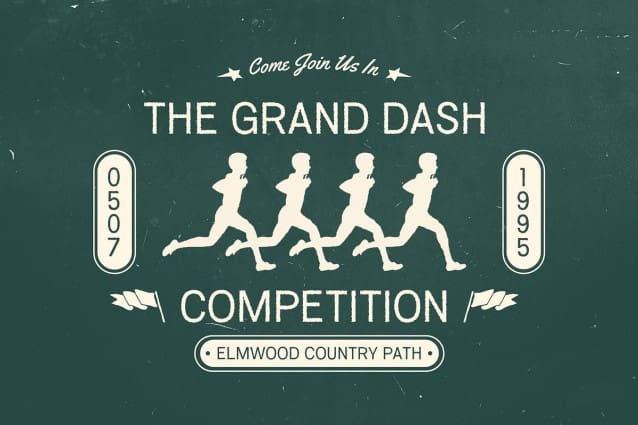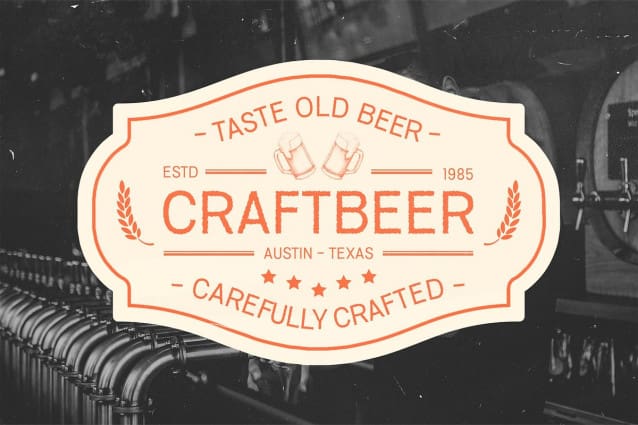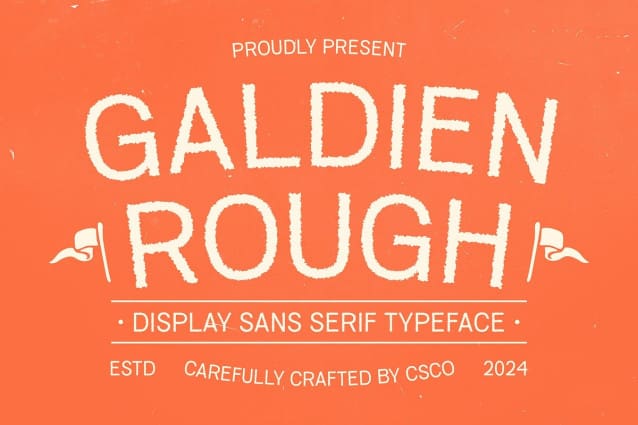
Galdien Rough Font
Galdien Rough Font is a modern sans-serif font that combines grotesque and geometric forms to create a bold and assertive visual presence. Its clean lines and angular shapes establish a structured and contemporary look, while the rough texture adds depth and an edge, making it stand out in any design. This strong, geometric aesthetic is ideal for projects that demand attention and evoke a sense of power.
Raw, Textured Design for Urban Appeal The rough effect applied to Galdien Rough provides a raw, textural quality that complements its geometric precision. This fusion of clean lines and rugged texture creates a unique balance, giving the font a rough yet refined appearance. The result is an urban, industrial feel, perfect for projects that seek to make a strong, bold impression with a touch of rebellious character.
Perfect for Bold Branding and Contemporary Projects Galdien Rough is perfect for daring branding, logos, and modern designs that want to evoke a sense of toughness and uniqueness. Its combination of sharp, geometric shapes and textured details makes it an excellent choice for projects that call for a bold and dynamic design. Whether you’re creating impactful branding, contemporary editorial layouts, or eye-catching signage, this font’s strong personality will make your design unforgettable.